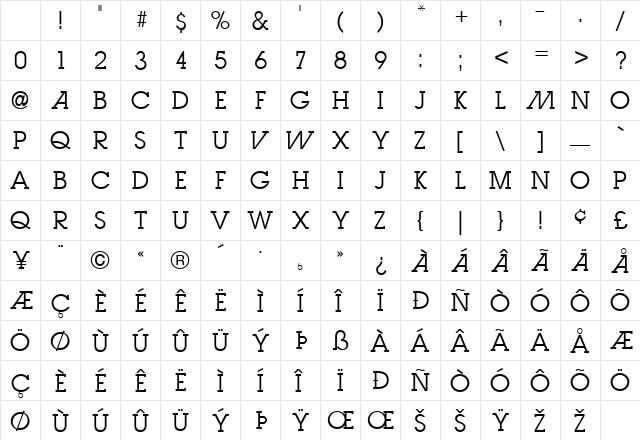
Letro is a composed and adaptable typeface that performs quietly and consistently across a wide range of design contexts. Its slender proportions lend an understated elegance to any composition.